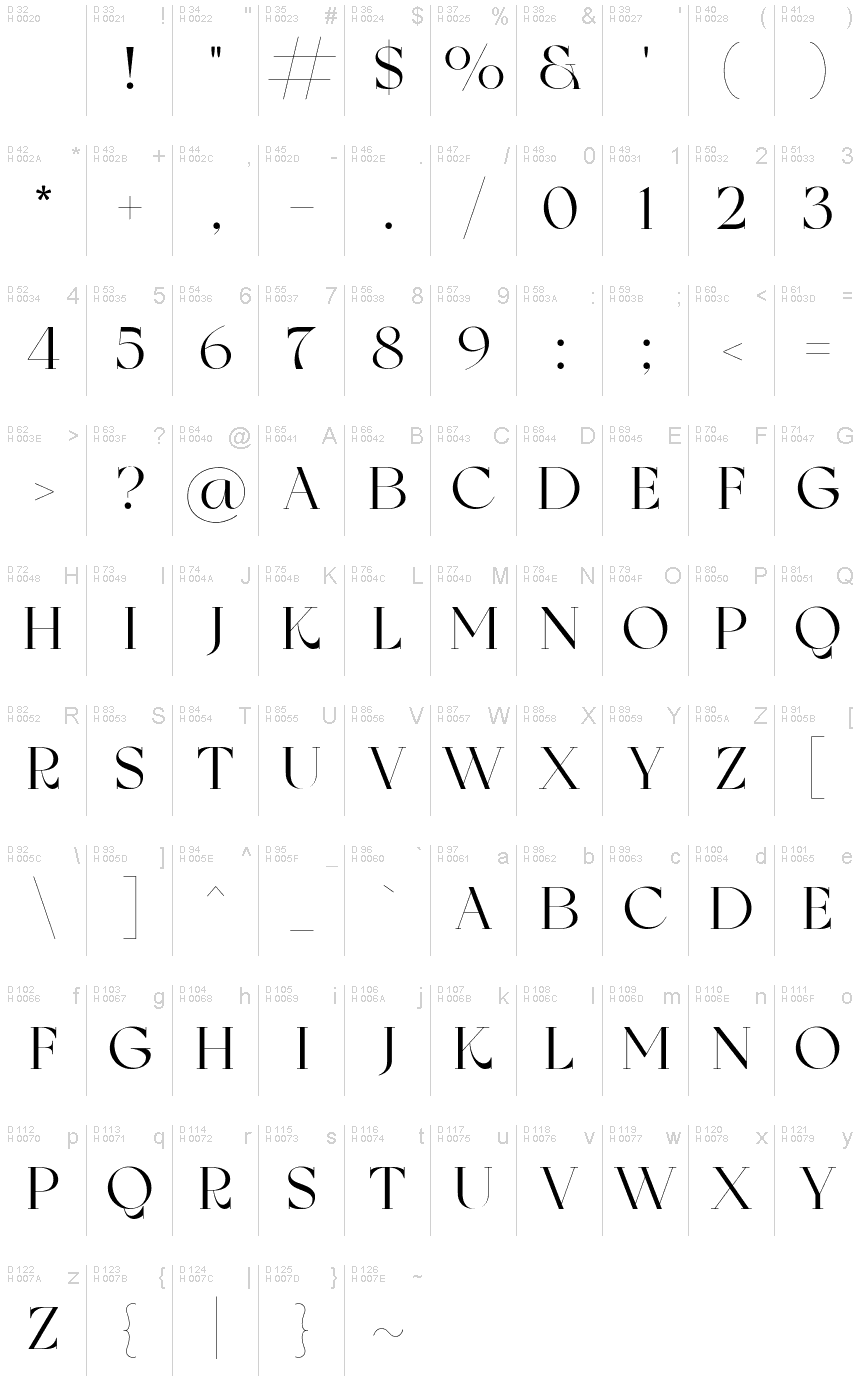
Bolkit Rayek
Bolkit Rayek is a stunning retro serif typeface designed by Khaiuns. Its semi-light weight adds to the vintage feel, making it perfect for projects that require a touch of nostalgia. With its elegant curves and classic appeal, Bolkit Rayek is ideal for branding projects, book covers, invitations, and more. Use it to give your designs a unique and sophisticated look that will set them apart from the rest. Whether you're working on a modern or traditional project, Bolkit Rayek's timeless design will add character and charm to any piece of work. Try it out today!
zt. Bolkit Serif is a typeface with two types of styles, one with an elegant and smooth arch shape, while the other has a type of firmness and the character presents a strong character in it. Being a letter whose concept is very interested in simplicity, the lines present in the elegant and firm zt. Bolkit make you feel it too.
zt. Bolkit also comes with two widths that all have two weights (Thin and Bold) Containing characters that include uppercase letters, lowercase letters, numbers, punctuation, 52 ligatures, 25 alternatives and symbols that will make your designs cooler in the future. Do not forget also this supports more than 60 languages derived from Latin, namely Western, Central and Southeastern European languages.
Designed by Khairunnas from Zelow Type 2021